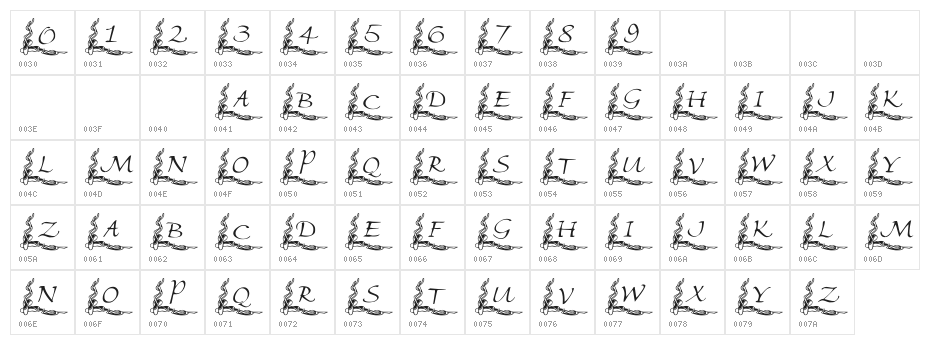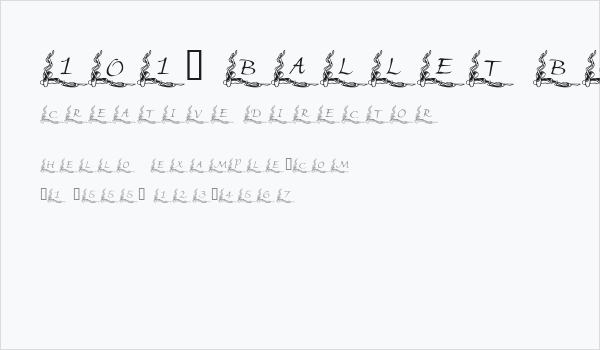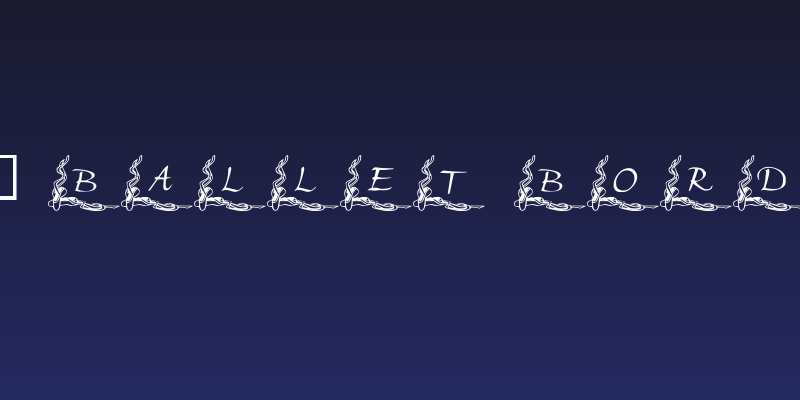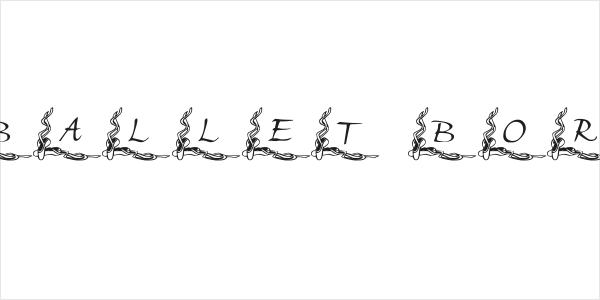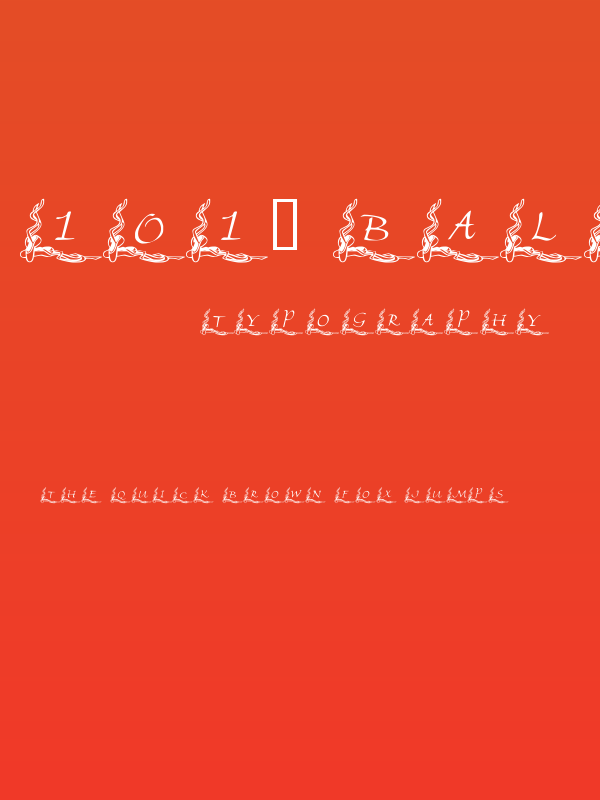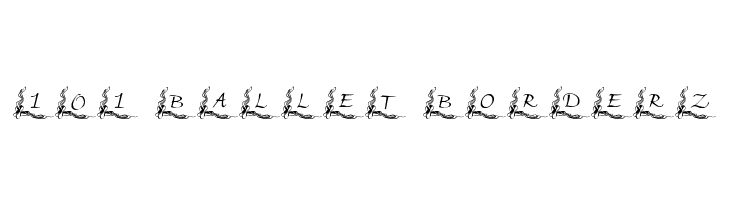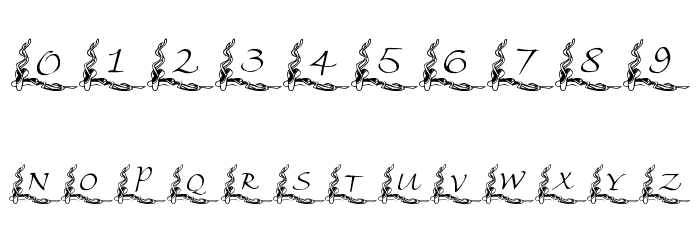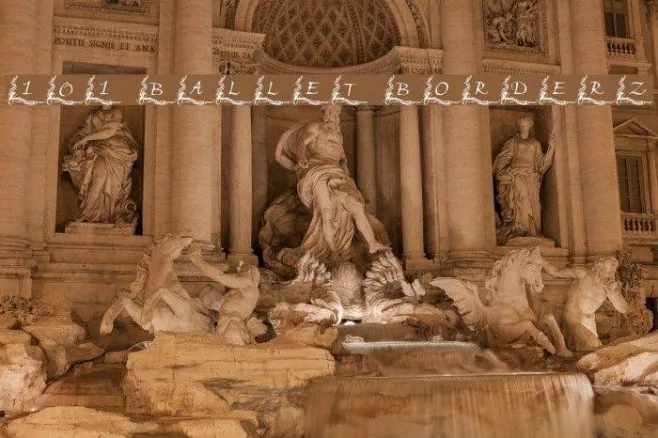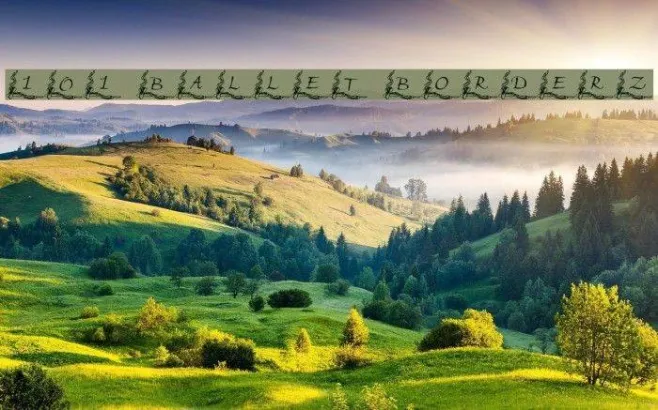
101! Ballet BorderZ Font
101! Ballet BorderZ Description
This font features an elegant and decorative style, characterized by its intricate border designs that accompany each character. The letters are gracefully crafted with a touch of sophistication, making them stand out with their unique embellishments. The font combines a classic serif structure with ornate, swirling patterns that give it a distinct, artistic flair. Each character is framed by a delicate, vine-like border, adding a sense of movement and fluidity. The overall appearance is both refined and whimsical, suitable for projects that require a touch of elegance and creativity.